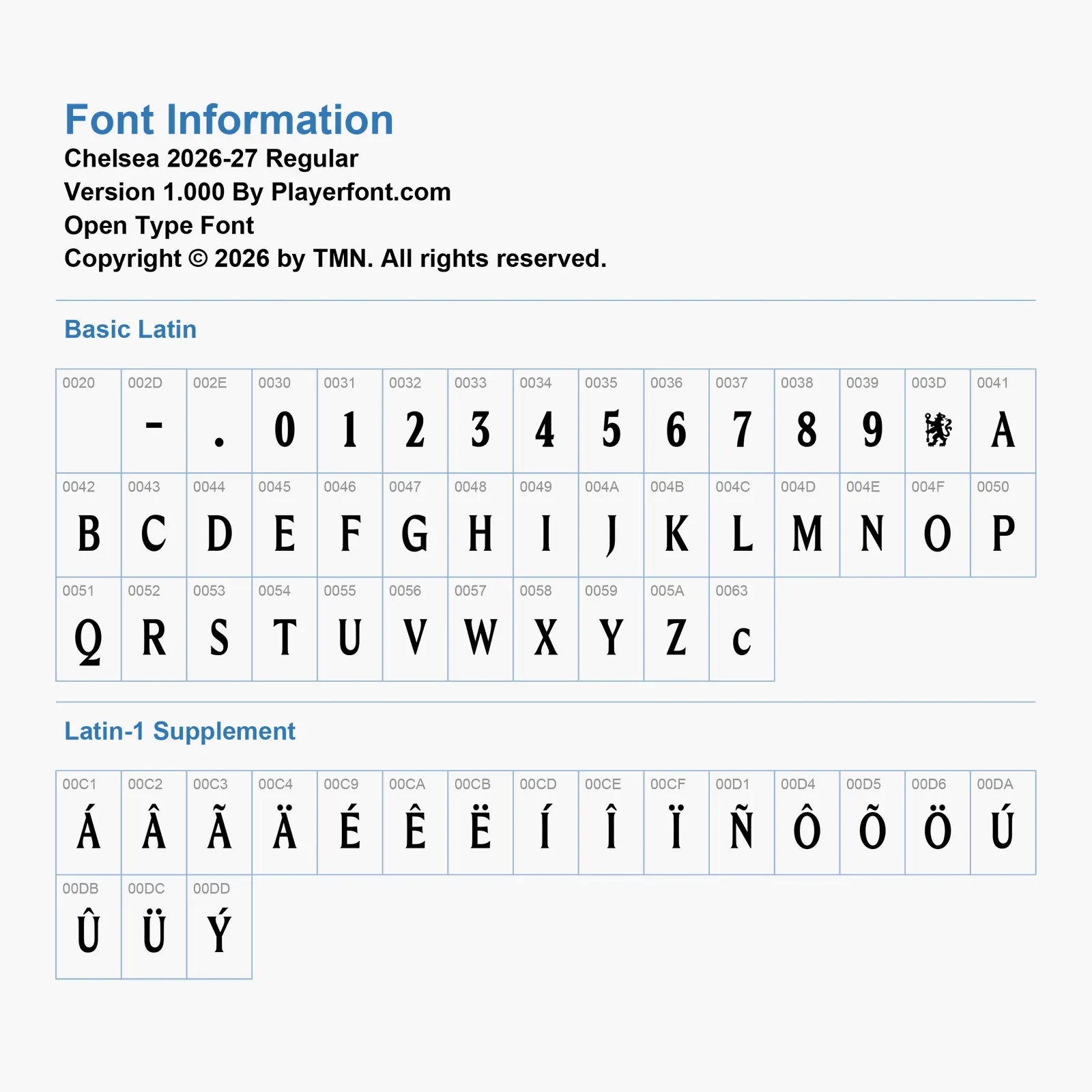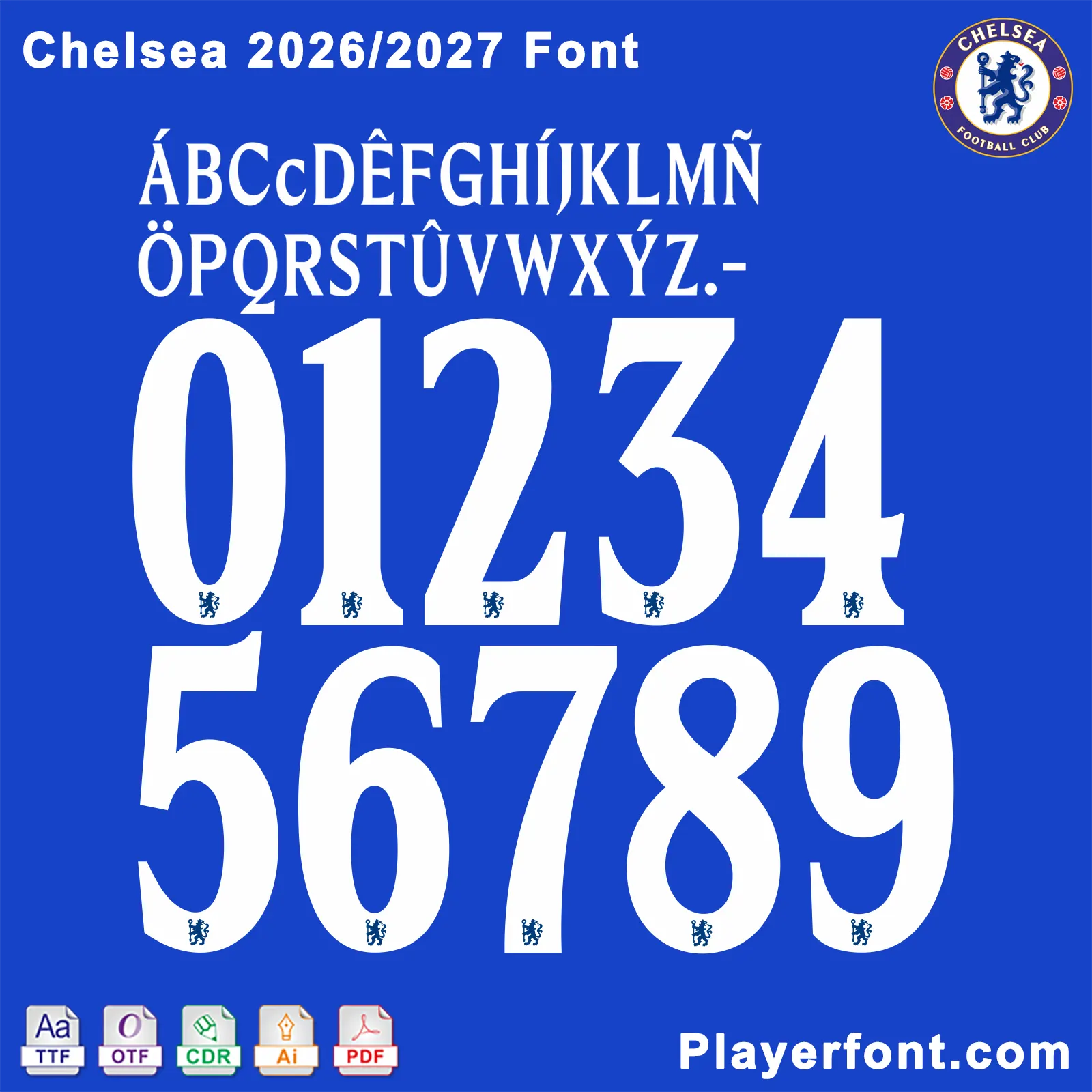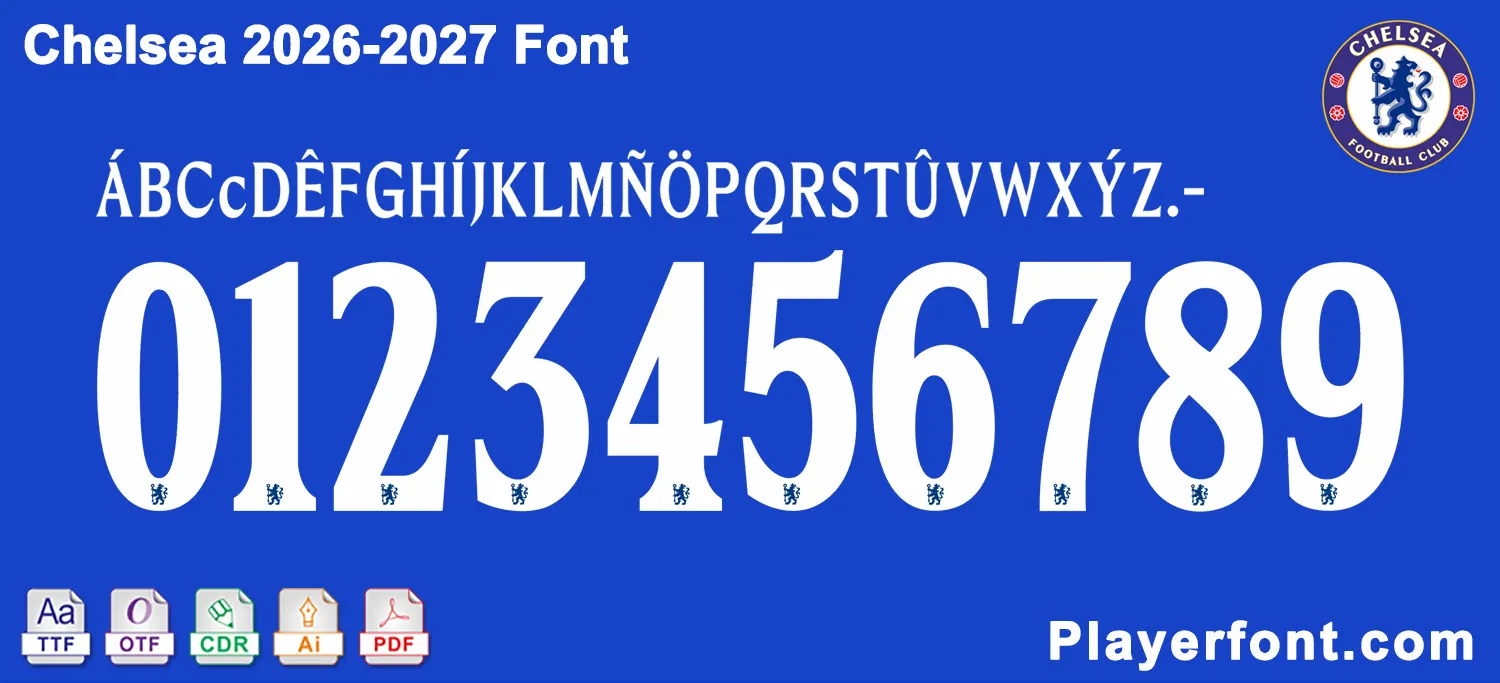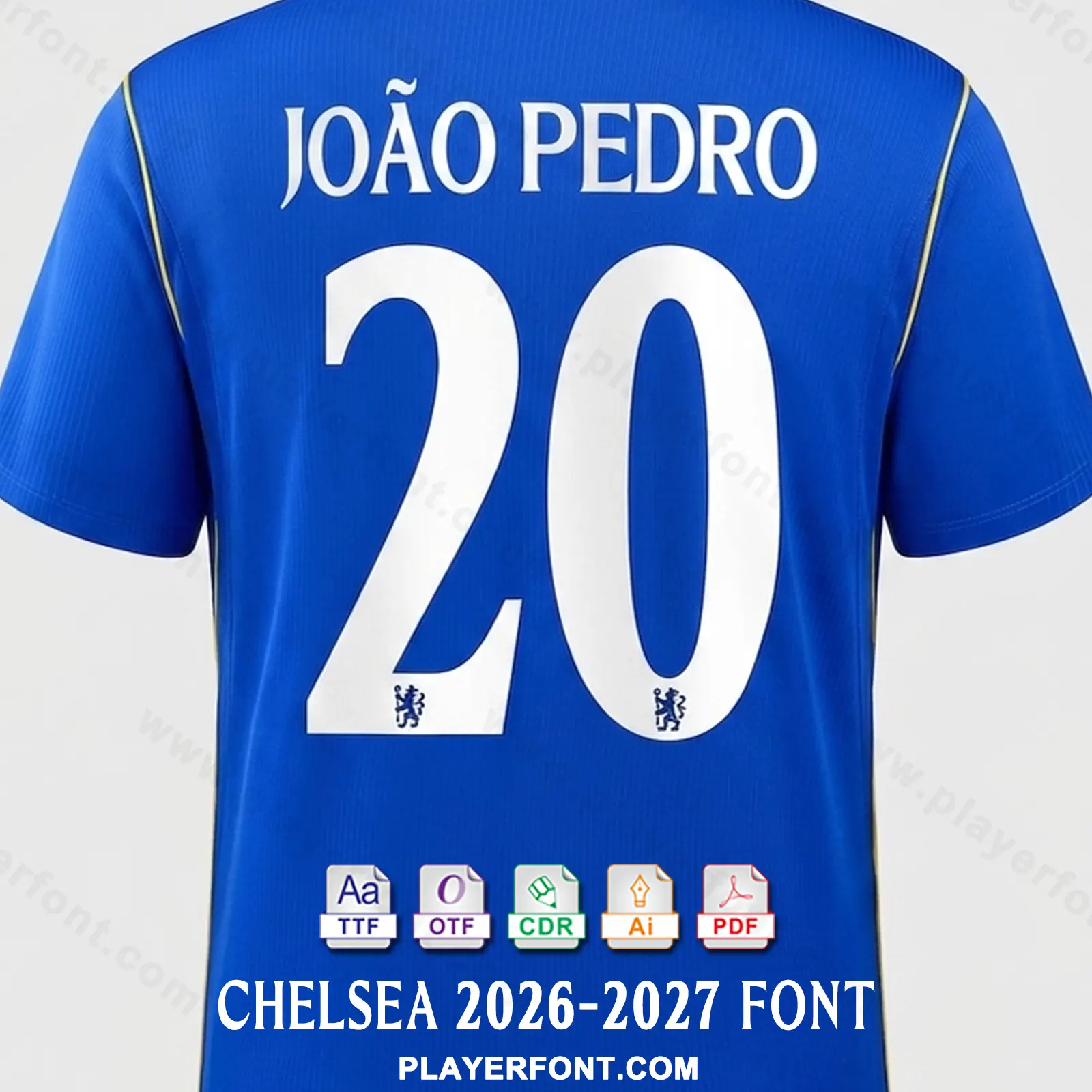
Download the premium Chelsea 2026-2027 Font Kit today! This complete typography pack includes high-quality TTF, OTF, AI, CDR, and PDF vector files, fully compatible with design software and garment printing. Features the complete alphabet string (with full multi-lingual accents) and elegant, flared-serif style jersey numbers embedded with the club’s iconic lion crest. Perfect for kit designers, sports customizers, and Chelsea fans.
Elevate your sports jersey mockups, football custom graphics, and vector apparel printing projects with the high-quality Chelsea 2026-2027 Font Download. Masterfully engineered by Playerfont.com, this high-performance typography set replicates the official-style flared serif numbers and sharp, elegant lettering featured on the pitch for the 2026-27 English football and European campaigns.
Key Typography Features & Character List:
• Basic Latin Set: Contains the complete A-Z uppercase character set, stylized flared numbers (0-9), punctuation marks, and hyphens.
• Advanced International Accent Support: Includes a complete set of accents (such as Á, Â, Ã, Ä, É, Ê, Ë, Í, Î, Ï, Ñ, Ó, Ô, Õ, Ö, Ú, Û, Ü, Ý) ensuring flawless rendering for global stars like JOÃO PEDRO.
• Authentic Club Details: The intricate Chelsea lion rampant holding a staff crest is beautifully embedded right into the base of each jersey number for maximum design authenticity.
Design Feature Flared Serif Geometry with Solid White Fills & Embedded Lion Crest